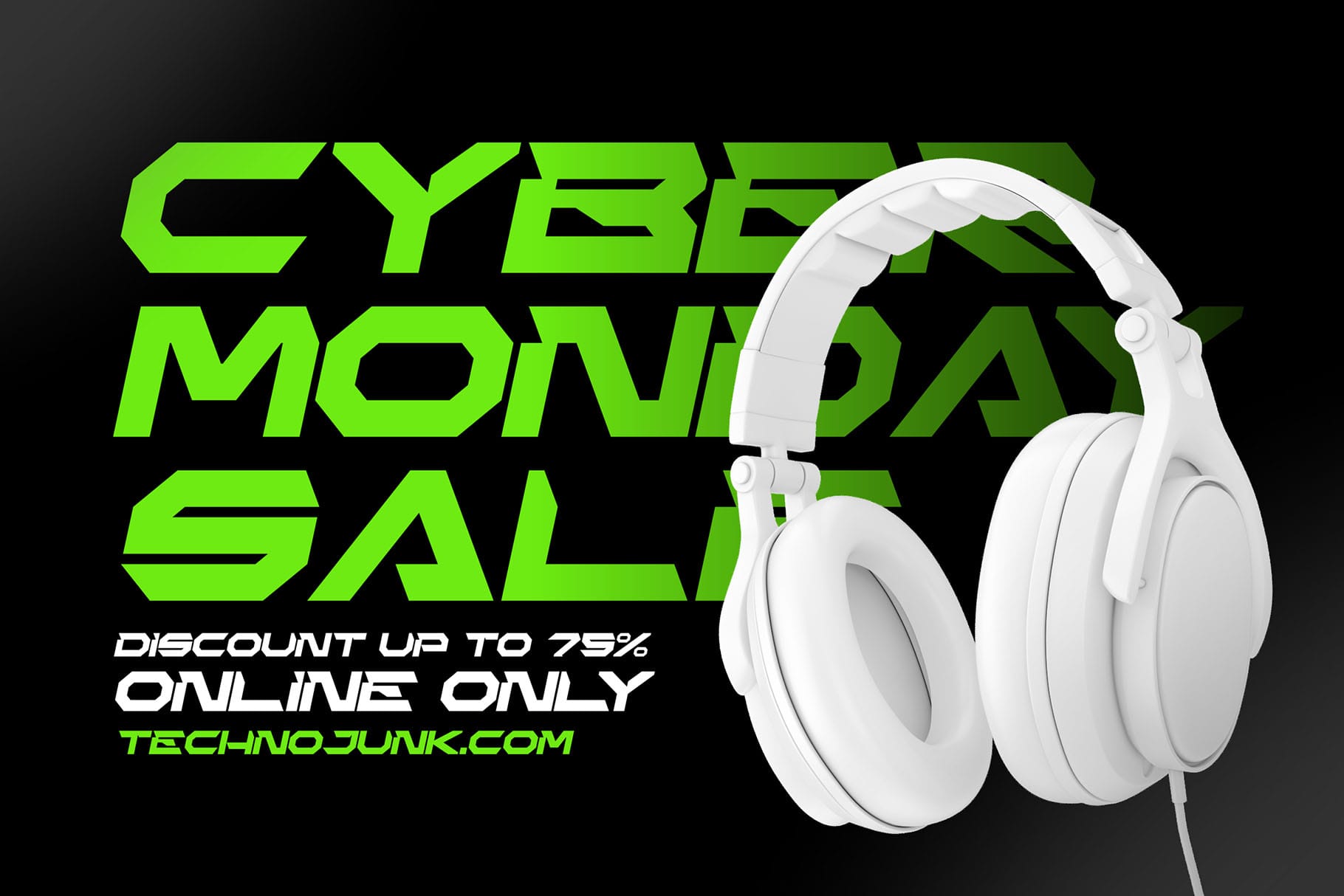
Heat Robox
🚀 Heat Robox – The Ultimate Futuristic Display Font 🔥
Step into the future with Heat Robox, a bold, cutting-edge, futuristic display font designed to bring a high-tech, cybernetic, and sci-fi edge to your projects! With its sharp angles, sleek geometry, and modern digital aesthetics, Heat Robox is perfect for tech branding, gaming, esports, sci-fi movie titles, and innovative designs.
Whether you’re crafting futuristic logos, neon-themed posters, high-tech interfaces, or next-gen product packagingHeat Robox adds a sleek, powerful, and electrifying touch that makes your work stand out.
💥 Why Choose Heat Robox?
✅ Futuristic & High-Tech – Perfect for sci-fi, gaming, and cyberpunk themes.
✅ Sleek & Geometric – Modern, digital letterforms with sharp precision.
✅ Bold & Eye-Catching – Designed for high-impact visuals.
✅ Versatile & Dynamic – Ideal for branding, posters, UI/UX, and digital graphics.
✅ Multilingual Support – Covers multiple languages for global use.
✅ Complete Character Set – Includes uppercase, lowercase, numbers, punctuation, and symbols.
💡 Perfect for:
🎮 Esports & Gaming Titles
🤖 Sci-Fi & Cyberpunk Graphics
🔵 Tech Branding & Logos
📺 Movie Titles & Trailers
💻 High-Tech UI/UX & Web Designs